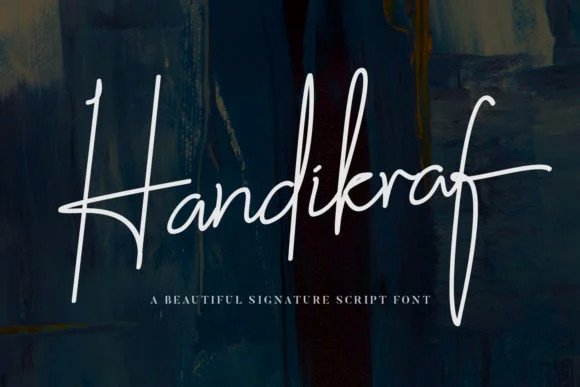
Handikraf Signature Font
Say hello to Handikraf Font. This font was designed by handwriting, and it has a modern and unique forms of calligraphy, the writing style is very natural. Handikraf is a beautiful signature-style script font with a handwritten feel. it’s suitable for logotype, headline, apparel, branding, invitation, thumbnail video, etc. Simply access them through the Glyphs palettes in programs like Illustrator, Photoshop, InDesign, etc. If you don’t have these programs, you’ll still have access to all of the standard and international characters.